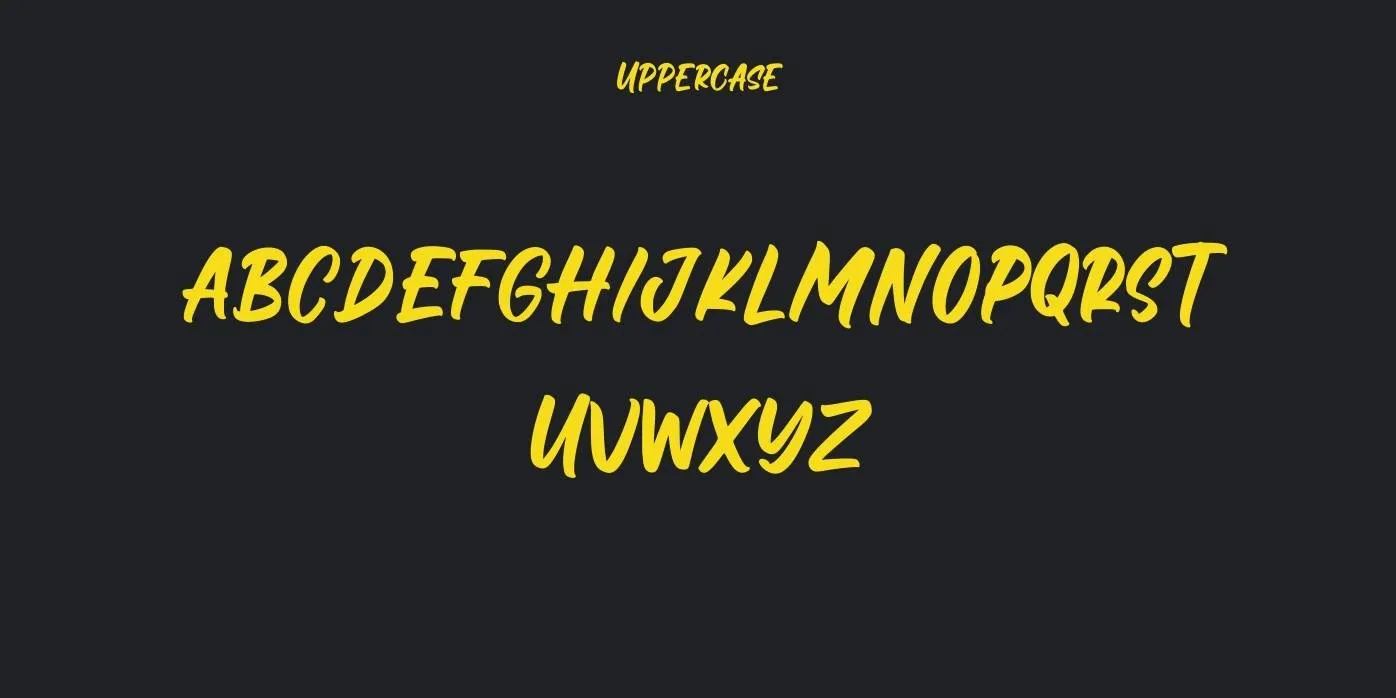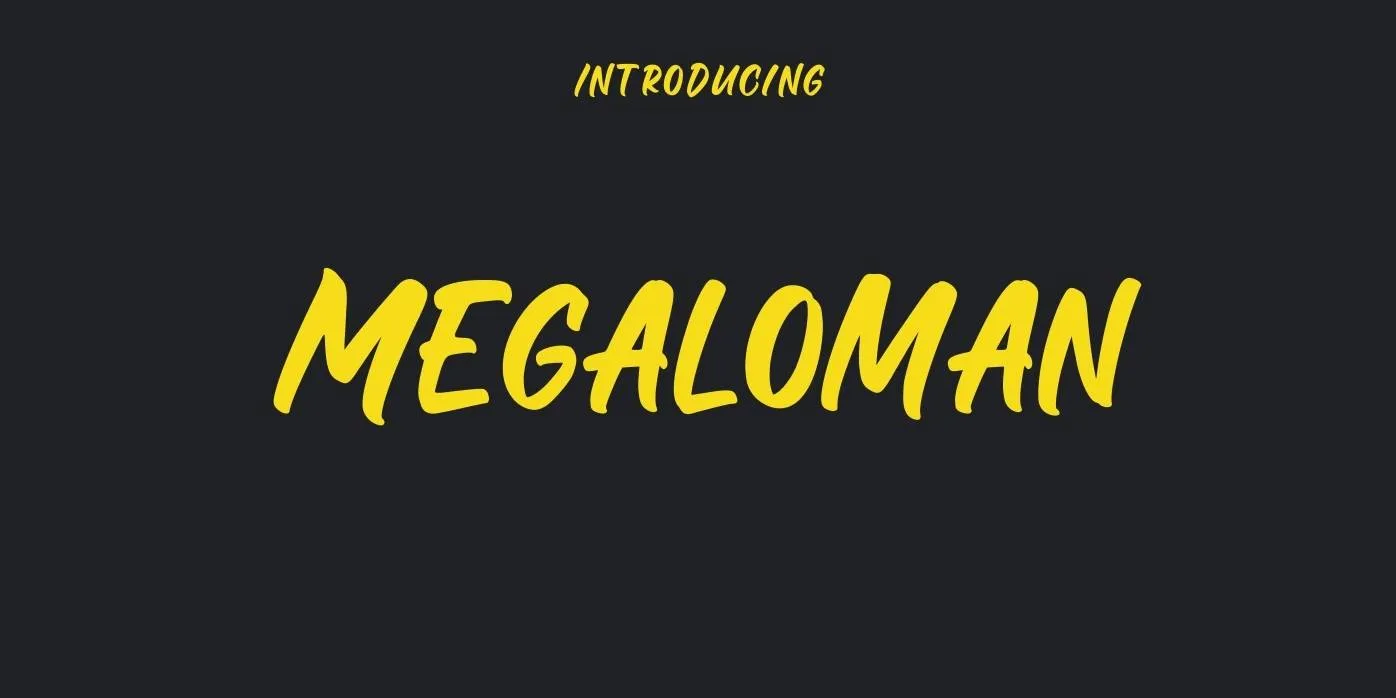
Megaloman Font
Megaloman Font is a brush-type texture. Rian Rahardi of the Creatype Studio Cowas designed this amazing brush type of font. This typeface is a trendy brush Font. Its characters are highly readable and bold which makes your design attractive.
It has 81 number of characters. These characters include uppercase letters, lowercase letters, special characters, and numbers. It has only one style available which is Megaloman Font regular. This font can be downloaded in TTF, OTF, and WOFF files.